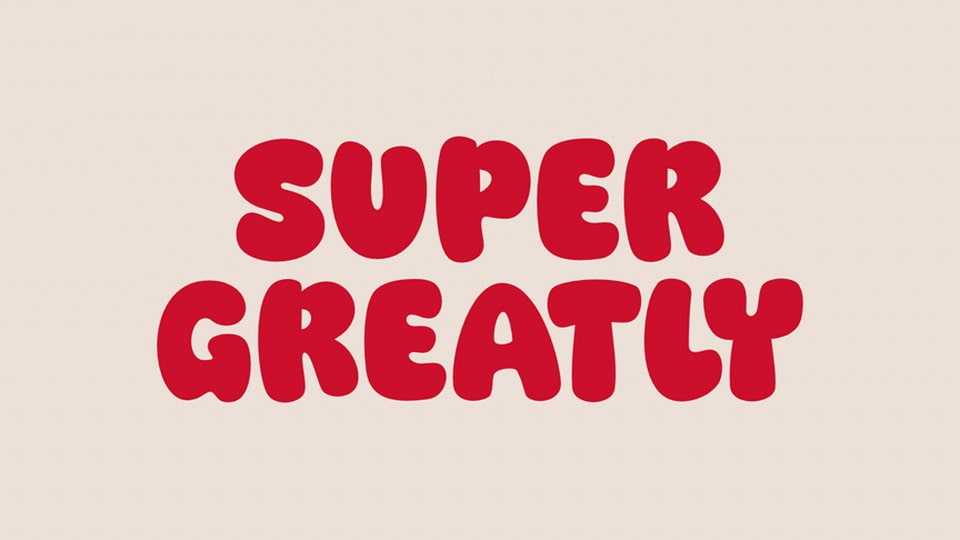
Download Super Greatly font, a bold, playful typeface that exudes energy and enthusiasm. With its rounded, bubbly letterforms, this font captures the essence of fun, positivity, and excitement.